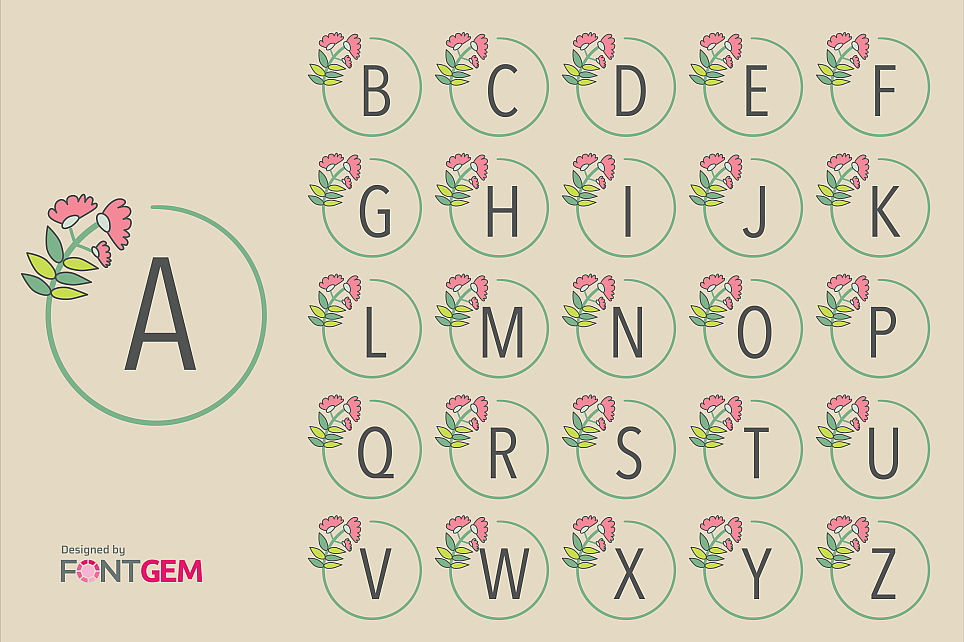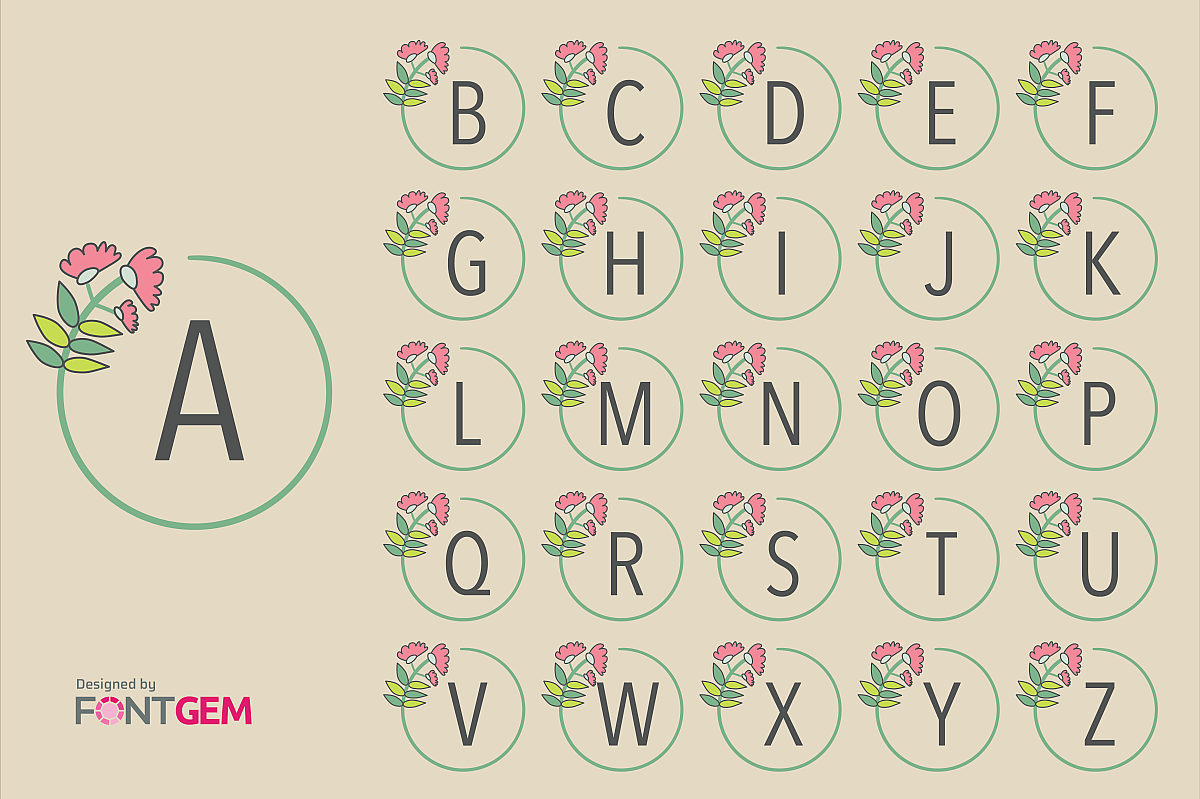
Free Floral Alphabet Letters – Botanical A–Z Monogram Set
This free floral alphabet set includes all 26 uppercase letters from A to Z, each decorated with soft flowers and leafy botanical elements. The clean sans-style lettering combined with gentle pastel florals makes it perfect for modern, elegant, and nature-inspired designs.
• Alphabet: A–Z (26 uppercase letters)
• Style: Floral / Botanical / Sans
• Theme: Flowers, leaves, minimalist nature
• Colors: Soft pastels (green, pink, beige)